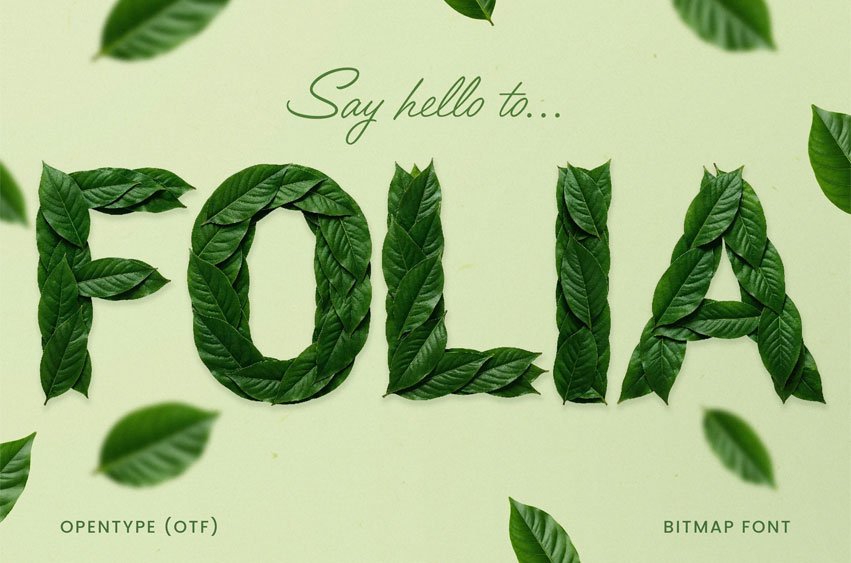
Folia Font is a vibrant display font crafted entirely from real layered leaves. Each letter is built with carefully arranged foliage, giving the typeface an authentic botanical texture and lush depth. Perfect for all kinds of nature and ecology projects.
Perfect for:
- Organic or zero-waste product lines
- Eco-friendly skincare & wellness brands
- Nature & Lifestyle Projects
- Green living blogs & social posts
- Environmental organizations and campaigns
- Farmers market posters
- Earth Day campaigns